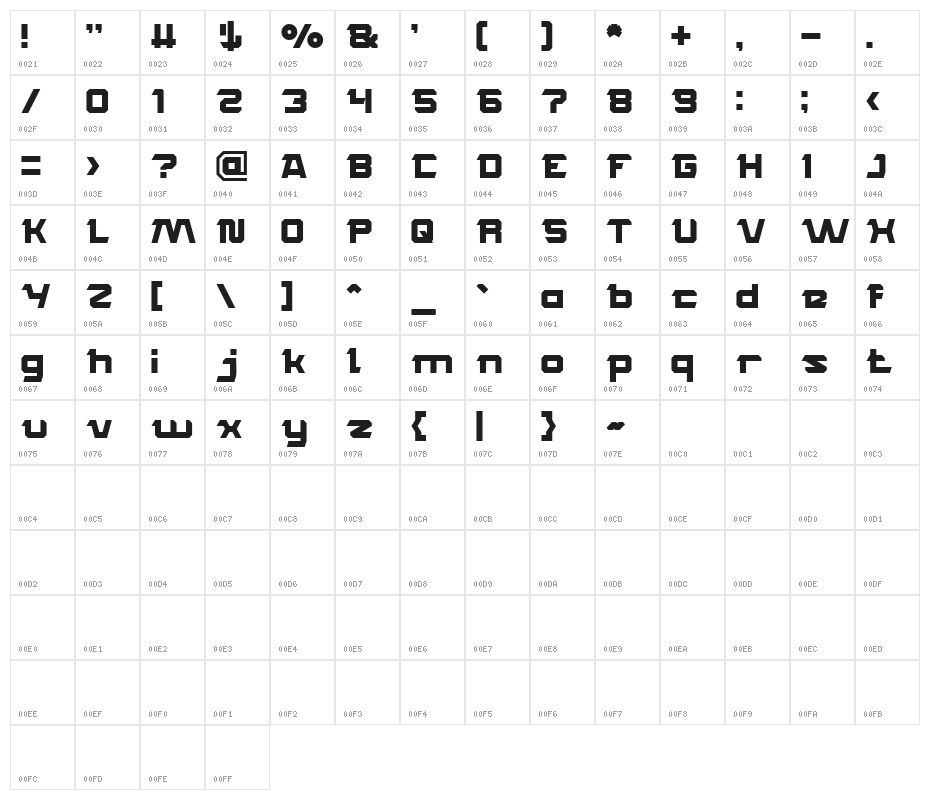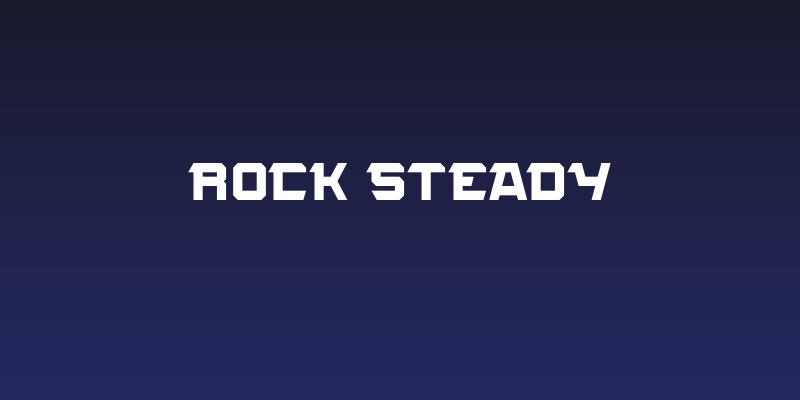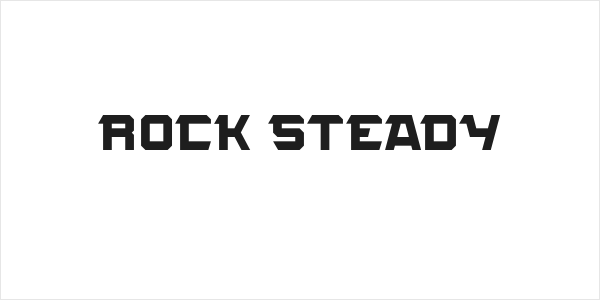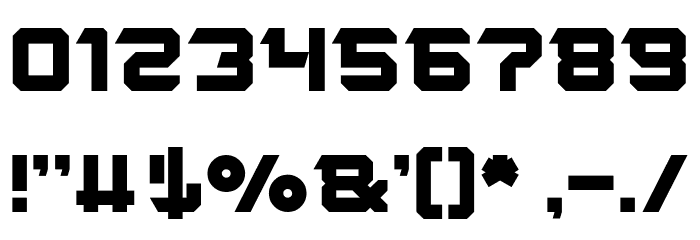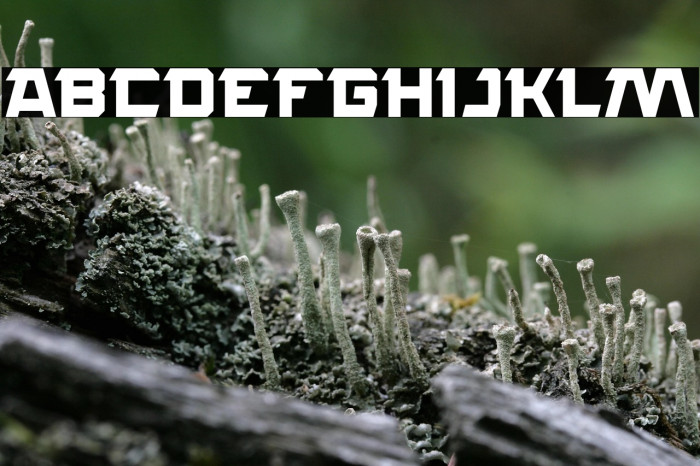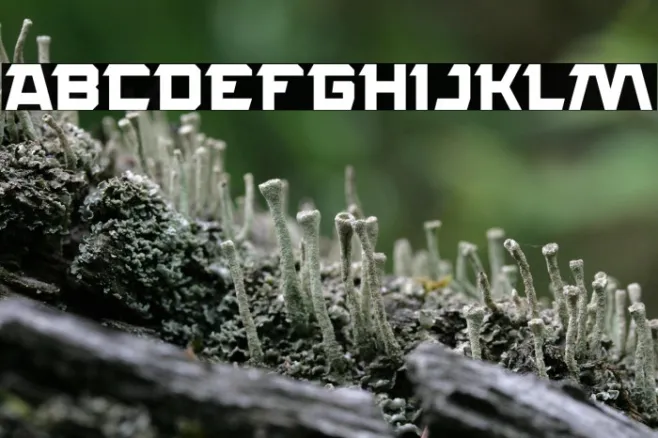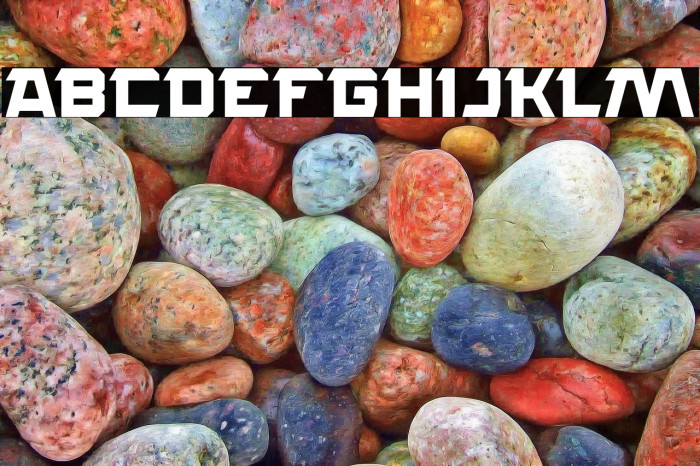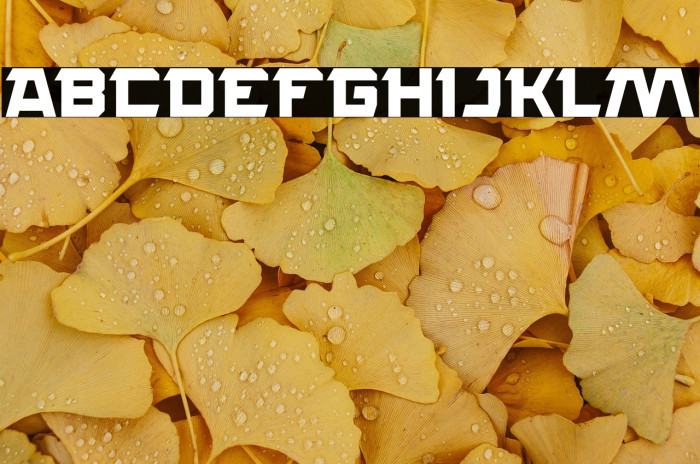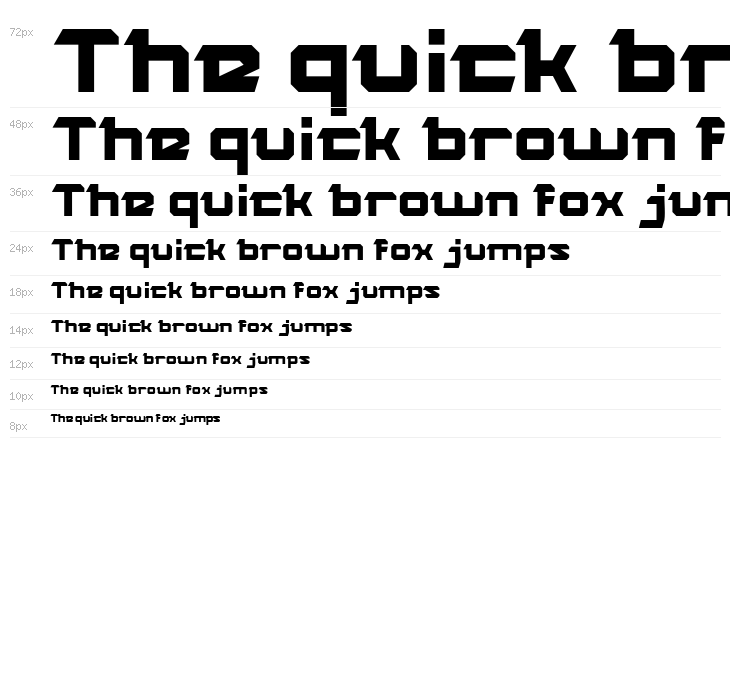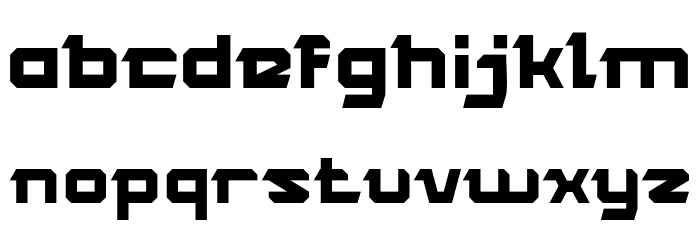
ROCK STEADY Font
ROCK STEADY Description
This font features a bold, geometric design with sharp angles and a strong presence. The characters are constructed with thick strokes, giving them a robust and sturdy appearance. The uppercase and lowercase letters maintain a consistent style, with angular cuts and a blocky form that conveys a sense of strength and stability. The numerals and special characters follow the same design principles, ensuring uniformity across all glyphs. This font's unique style makes it stand out, making it ideal for projects that require a bold and impactful visual statement.
| Proposed Projects | Ideal for branding, posters, headlines, and any design that requires a bold, impactful typeface. |